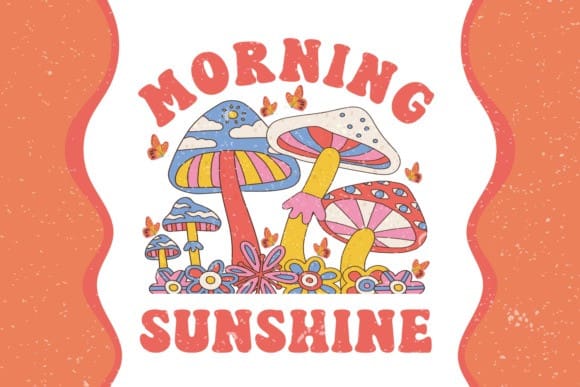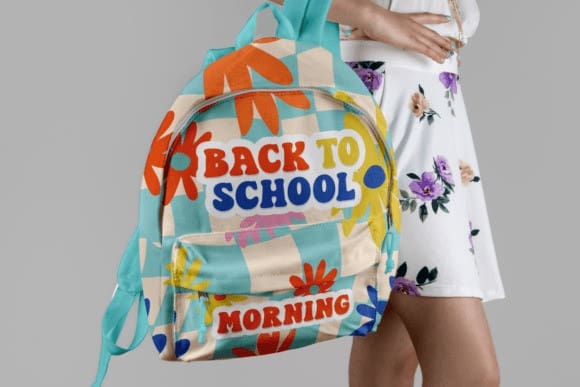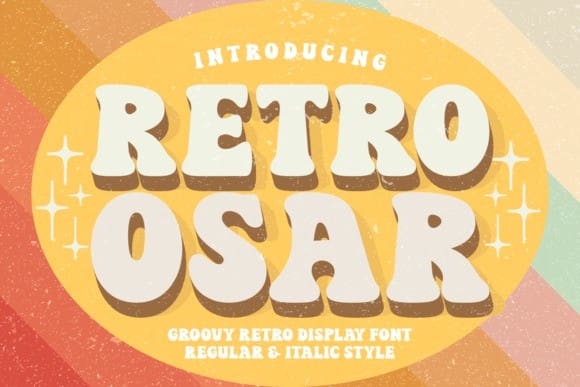
Retro Osar Font
Retro Osar Font is a jovial and inviting display font reminiscent of vintage signage and retro aesthetics. With its rounded edges and quirky letterforms, it exudes a friendly charm. Ideal for headlines, logos, and branding, RetroOsar adds a playful and nostalgic touch to any design project.